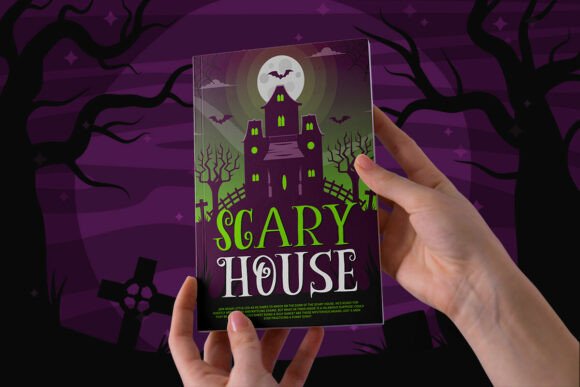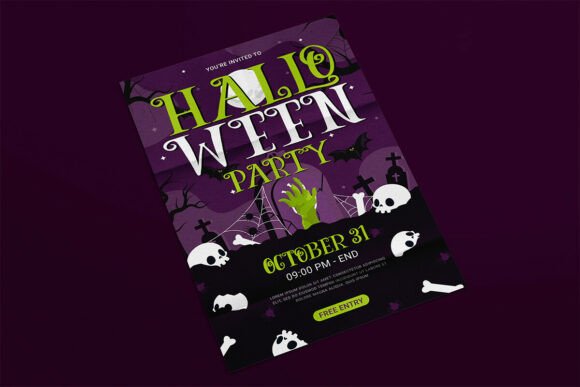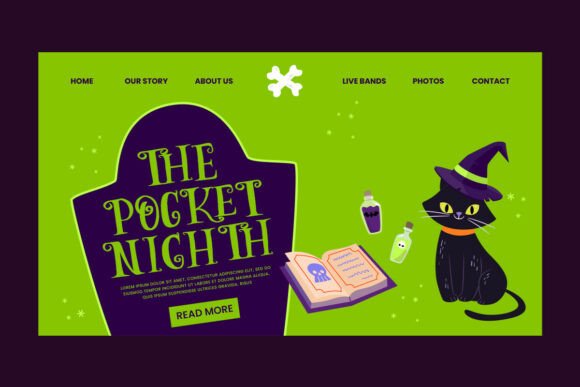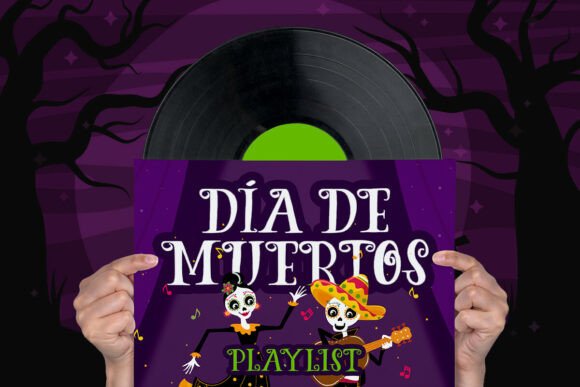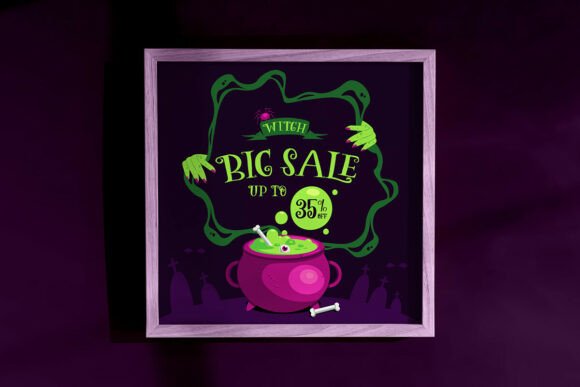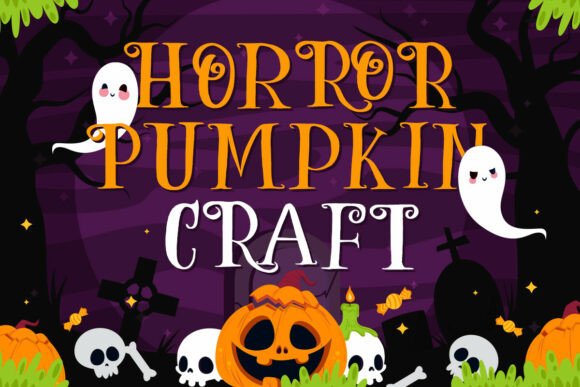
Demon Beast Font: Unleash the Spirit of Halloween with this Chilling Display Typeface
As the spookiest time of the year approaches, designers and crafters are on the lookout for the perfect font to capture the essence of Halloween. Look no further than the Demon Beast Font, a chilling display typeface that embodies the eerie and playful spirit of the holiday. With its bold shapes, gothic-inspired details, and haunting style, this font is sure to leave a memorable impression on your designs.
Design Elements of Demon Beast Font
The Demon Beast Font is designed with elongated strokes, twisted edges, and sinister embellishments that echo the themes of Halloween. Each character carries a sense of mystery and darkness, while maintaining a playful undertone that makes the font perfect for both spooky and festive designs. The letterforms are carefully crafted to evoke a sense of frightful fun, making it an excellent choice for posters, apparel, party décor, and seasonal crafts.
Key Features of Demon Beast Font
- Bold and Gothic-Inspired Design: The font features bold shapes and gothic-inspired details that capture the spirit of Halloween.
- Elongated Strokes and Twisted Edges: The letterforms are designed with elongated strokes and twisted edges that add to the font’s haunting style.
- Sinister Embellishments: The font includes sinister embellishments that echo the themes of Halloween.
- Playful Undertone: Despite its dark and mysterious feel, the font maintains a playful undertone that makes it perfect for festive designs.
- Versatile and Adaptable: The Demon Beast Font thrives in creative projects such as embroidery, Cricut crafts, signage, and game titles, as well as holiday merchandise and decorations.
Uses of Demon Beast Font
The Demon Beast Font is a versatile typeface that can be used in a variety of creative projects, including:
- Posters and Flyers: Create eye-catching posters and flyers for Halloween events, parties, or haunted houses.
- Apparel and Accessories: Design spooky and festive apparel, such as t-shirts, hoodies, and hats, for Halloween enthusiasts.
- Party Décor and Crafts: Use the font to create spooky and festive party décor, such as banners, signs, and invitations.
- Embroidery and Cricut Crafts: The font is perfect for embroidery and Cricut crafts, such as Halloween-themed patches, stickers, and decals.
- Signage and Game Titles: Use the font to create eye-catching signage and game titles for Halloween-themed games and events.
Why Choose Demon Beast Font?
The Demon Beast Font is a must-have for designers and crafters who want to create spooky and festive designs for Halloween. Its haunting style and playful undertone make it perfect for a variety of creative projects. Here are just a few reasons why you should choose Demon Beast Font:
- Unique and Eye-Catching Design: The font’s bold and gothic-inspired design makes it stand out from other typefaces.
- Versatile and Adaptable: The font can be used in a variety of creative projects, from posters and apparel to party décor and crafts.
The Demon Beast Font is a chilling display typeface that embodies the eerie and playful spirit of Halloween. With its bold shapes, gothic-inspired details, and haunting style, it’s perfect for creating spooky and festive designs for a variety of creative projects. Whether you’re a designer or crafter, this font is a must-have for your Halloween-themed creations. So why wait? Unleash the spirit of Halloween with the Demon Beast Font and create designs that will leave a memorable impression.